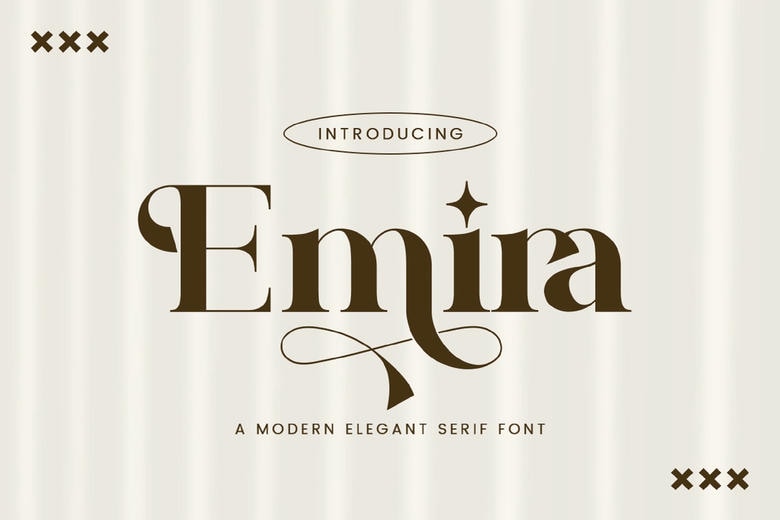
Emira Font
Emira Stylish Ligature Typeface is based on a famous minimalistic Logo type perfect for the creation of templates, flyers, videos, advertising, branding, logos and many other purposes. The free version provides all uppercase and lowercase letters and a few special characters too.
Emira Serif Font